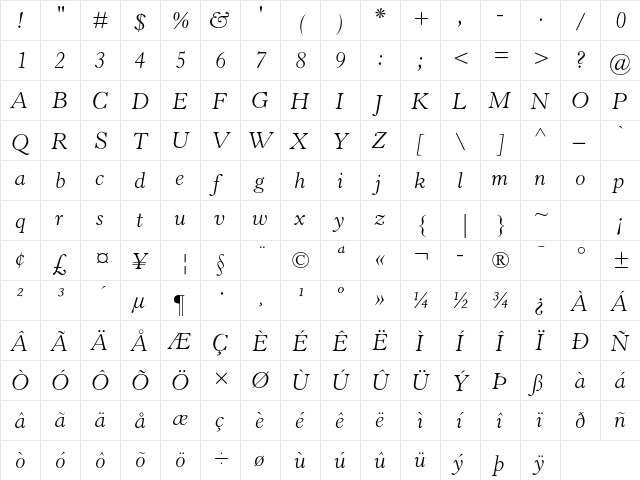
Horley Old Style MT Std Light Italic Font Preview
Design Context for Horley Old Style MT Std Typeface
Horley Old Style MT Std takes a measured approach to typography — its balanced proportions and neutral character make it a reliable workhorse for both digital and print work. The slanted form adds forward momentum and visual energy. Its slender proportions lend an understated elegance to any composition.